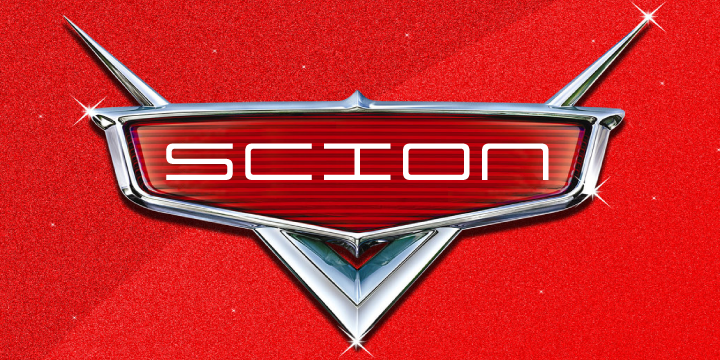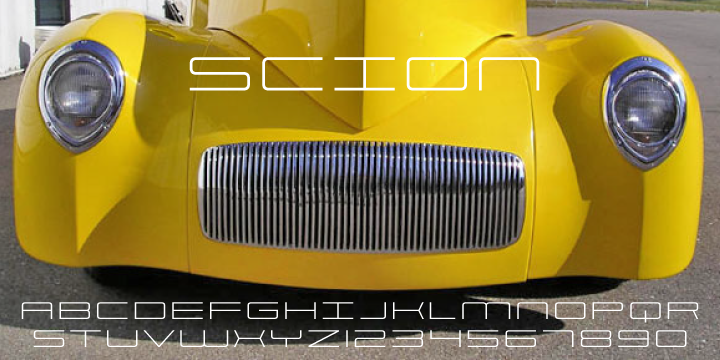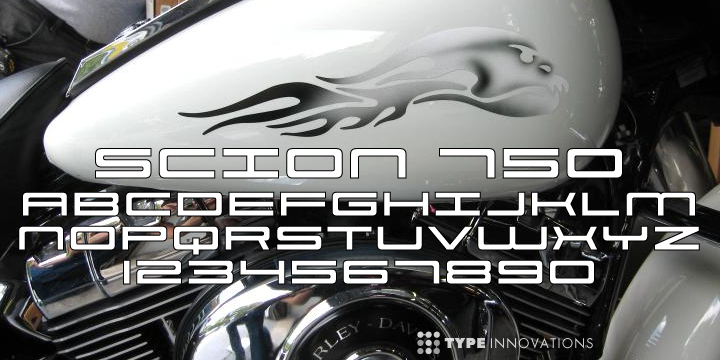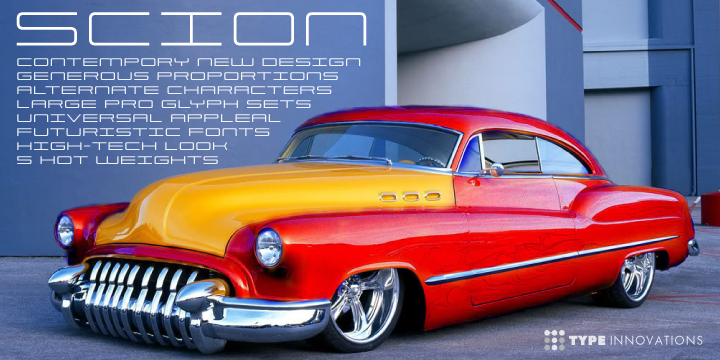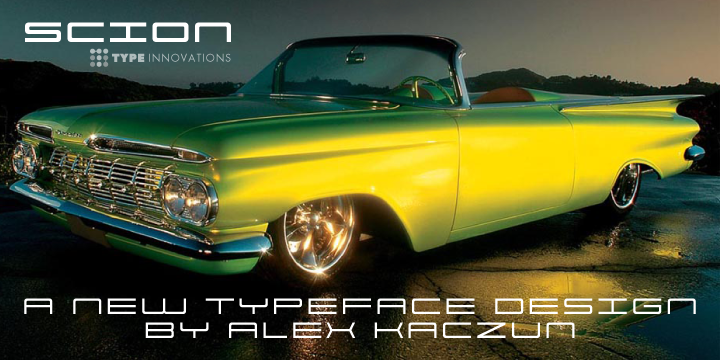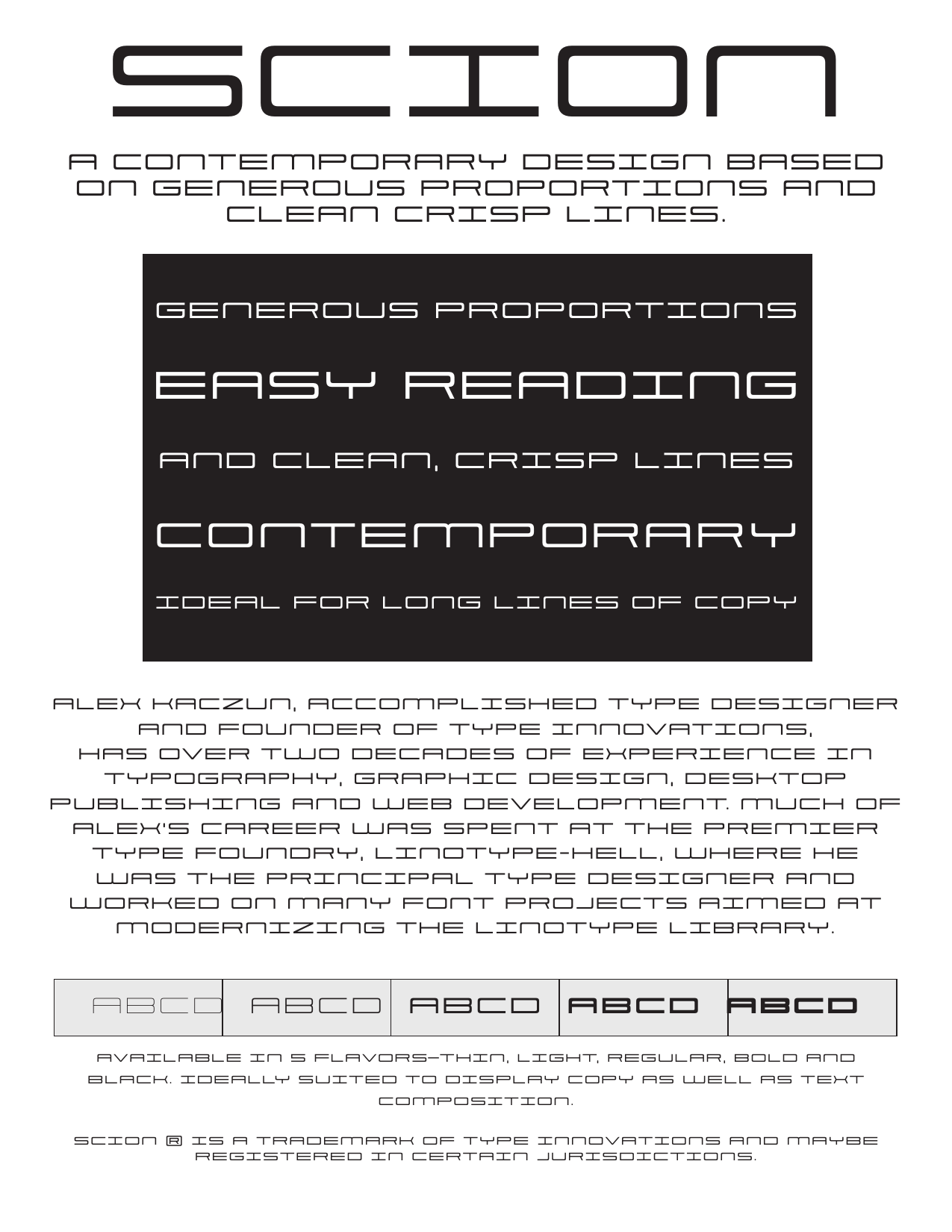
Scion Collection
‘Scion’ is an original design by Alex Kaczun. The inspiration for the typeface came from the Toyota SCION logo, which bears its name. In Alex’s own words, "I loved the simplicity, proportions and hi-tech look of the logo and decided to create an entire new design series based on its unique look".
The fonts come in five flavors: thin, light, regular, bold and black. All the font weights were designed systematically on tabular widths so that the user can make adjustments to overall type color without changing the line length. In addition, Alex Kaczun has provided us with several alternate glyph substitions to further enhance the overall appeal of this contemporary new design.
The large Pro font character set, which supports most Central European and many Eastern European languages, makes this typeface series ideally suited for display copy as well as text composition. In the near future, Alex plans to include a narrow, compressed and ultra expanded, along with true-drawn italic variations to further expand the possibilities of this great new display series.